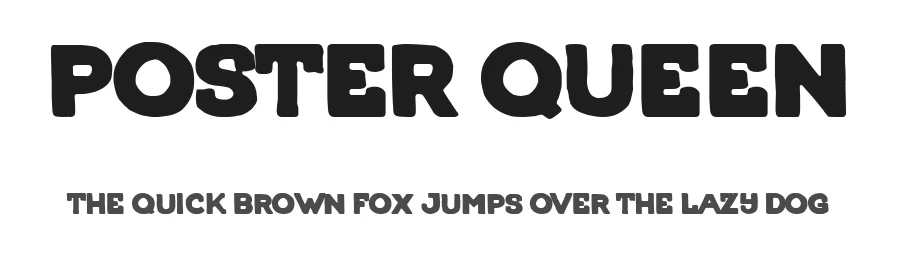
About RNS Bobo Dylan Font
RNS Bobo Dylan is a decorative font designed by RNS. It includes 133 glyphs, a regular weight, OTF (CFF) format, and 161 languages. RNS Bobo Dylan is free to download; check the license details on this page before commercial use. Decorative fonts like RNS Bobo Dylan work best for logos, posters, packaging, and standout headlines.
| Designer | Yorlmar Campos |
RNS Bobo Dylan Font is a decorative font that shines as a display or heading face. Pair it with a clean sans-serif or serif font for body text β the contrast creates a clear hierarchy while the two styles stay balanced and easy to read.
RNS Bobo Dylan Font
by RNS
RNS Bobo Dylan Font is a decorative typeface by RNS, ideal for logos, invitations, branding, and creative projects.